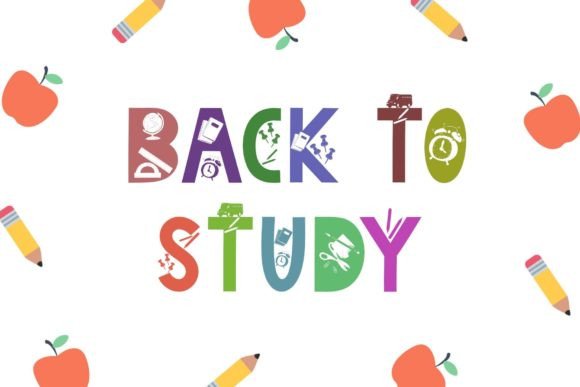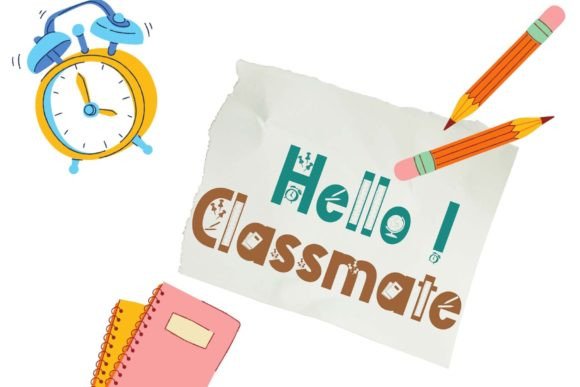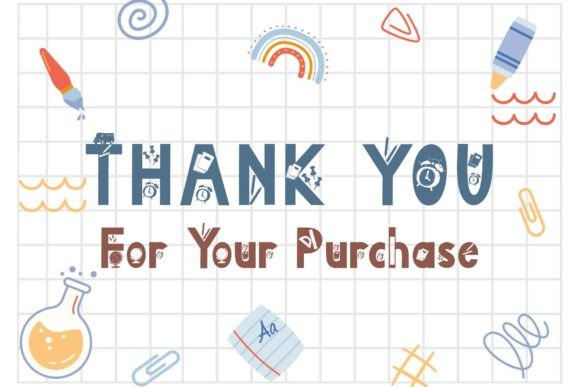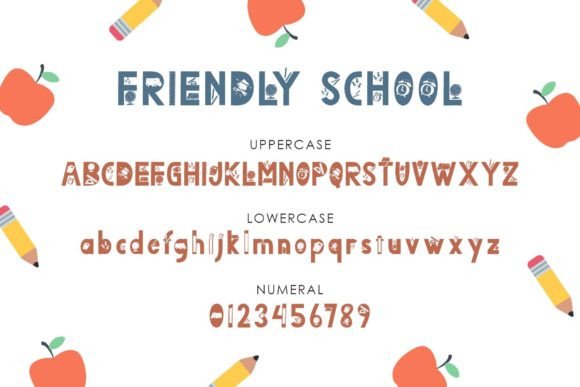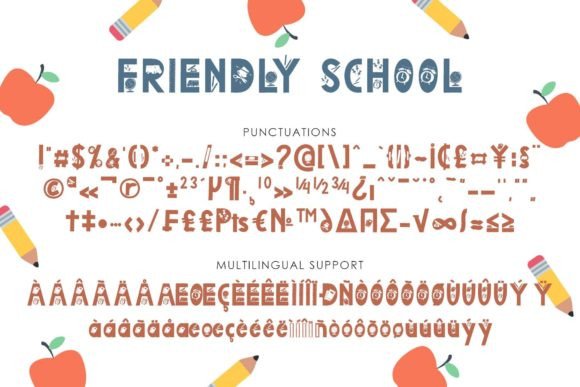
Introducing Friendly School Font: The Perfect Choice for Educational and Seasonal Designs
Are you a designer, teacher, or crafter looking for a unique and engaging font to elevate your back-to-school, Teacher’s Day, Christmas, fall, autumn, or Halloween projects? Look no further than the Friendly School font! This display font is specifically designed to add a touch of warmth and friendliness to your posters, prints, branding, banners, logos, stickers, and more.
What Makes Friendly School Font So Special?
The Friendly School font is a one-of-a-kind display font that boasts a playful and approachable vibe. Its unique lettering style is perfect for creating eye-catching designs that appeal to students, teachers, and parents alike. Whether you’re creating educational materials, promotional products, or seasonal decorations, this font is sure to make your project stand out.
Perfect for Various Occasions
One of the best things about the Friendly School font is its versatility. It’s suitable for a wide range of occasions, including:
• Back-to-school projects: Create engaging posters, flyers, and brochures that welcome students back to school.
• Teacher’s Day: Show your appreciation for teachers with custom stickers, banners, and prints.
• Christmas and winter holidays: Add a festive touch to your holiday cards, decorations, and gift tags.
• Fall and autumn: Create cozy and inviting designs for harvest-themed projects, such as pumpkin patches, apple picking, and more.
• Halloween: Design spooky-ooky posters, stickers, and decorations that are perfect for the spookiest time of the year.
With the Friendly School font, the design possibilities are endless! Here are some ideas to get you started:
• Posters and prints: Create eye-catching posters and prints for your classroom, office, or home.
• Branding and logos: Use the Friendly School font to create a custom logo or brand identity for your business or organization.
• Banners and signs: Design festive banners and signs for special events, holidays, or everyday use.
• Stickers and labels: Create custom stickers and labels for your projects, gifts, or products.
Why Choose Friendly School Font?
So, why should you choose the Friendly School font for your next project? Here are just a few reasons:
• Unique and playful design: The Friendly School font is unlike any other font out there, making it perfect for designers and crafters who want to stand out.
• Easy to read: Despite its playful design, the Friendly School font is easy to read, making it perfect for body text and headings.
• Versatile: This font is suitable for a wide range of occasions and projects, making it a great addition to your font library.
Get Creative with Friendly School Font
In conclusion, the Friendly School font is a unique and versatile display font that’s perfect for educational and seasonal designs. Its playful and approachable vibe makes it suitable for a wide range of occasions, from back-to-school projects to Halloween decorations. So why wait? Download the Friendly School font today and start creating engaging and eye-catching designs that will delight students, teachers, and parents alike!